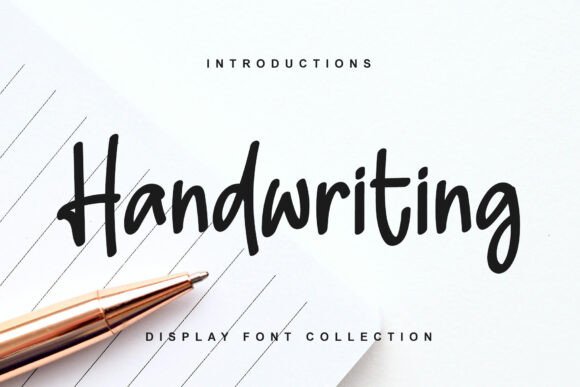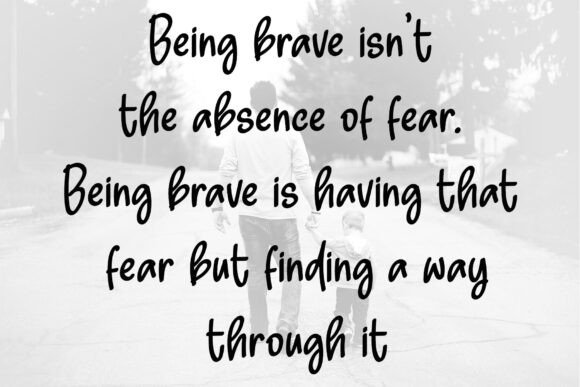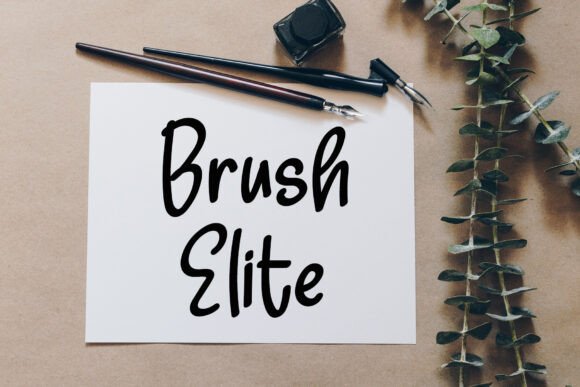
Handwriting Font
Handwriting is a fun and quirky display font perfect for use on cheerful topics. Very suitable for children’s themed designs, especially when combined with bright colors.